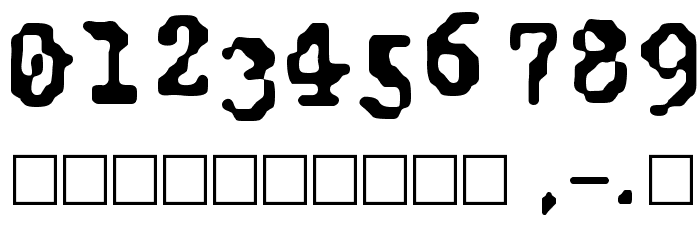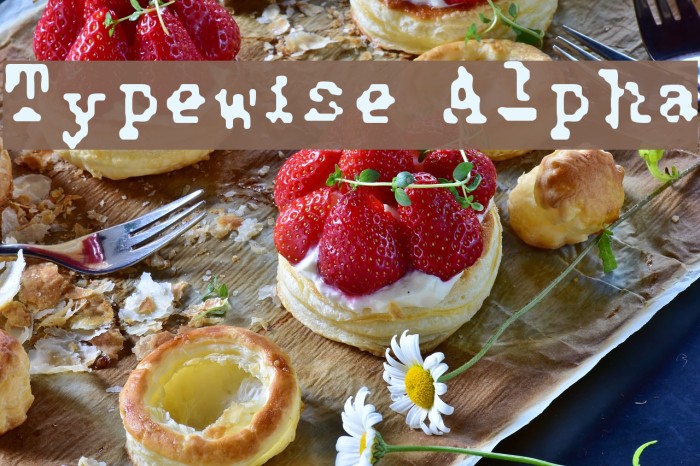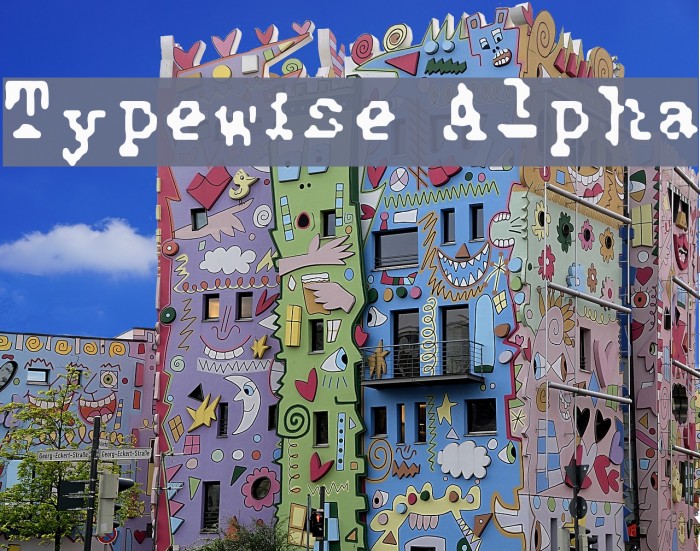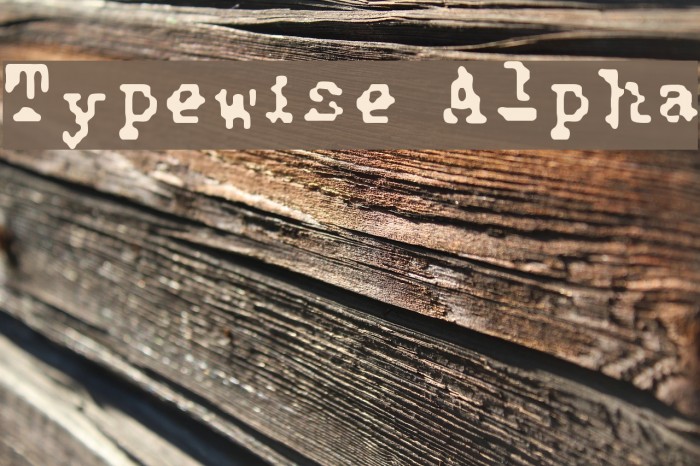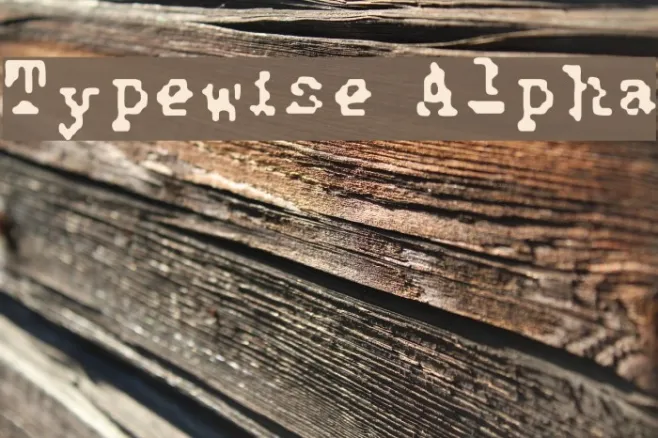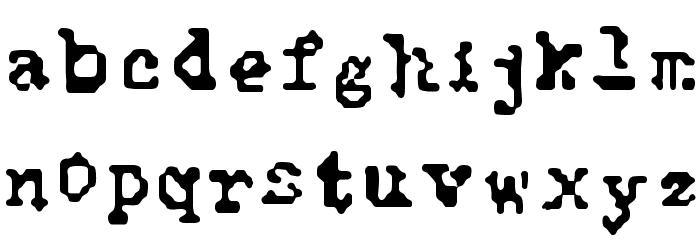
Typewise Alpha Font
Typewise Alpha Description
This font features a bold and distinctive style with a rugged, almost stencil-like appearance. The characters are heavily weighted with irregular edges, giving them a unique, handcrafted look. The uppercase letters are particularly striking, with a strong presence and a slightly condensed form. The lowercase letters maintain the same boldness, with some characters having a playful, quirky twist. Numbers are equally bold, ensuring they stand out in any design. The special characters follow the same design ethos, providing consistency across the font. This font is perfect for projects that require a strong, eye-catching typeface with a touch of personality.
| Proposed Projects | Ideal for posters, branding, packaging, and any design needing a bold, standout typeface. |